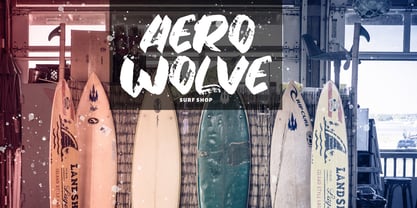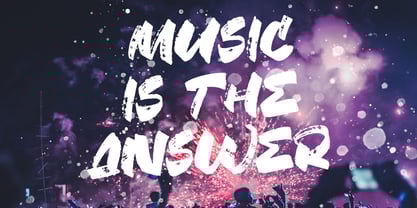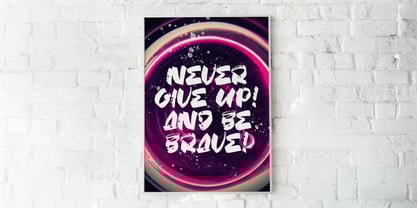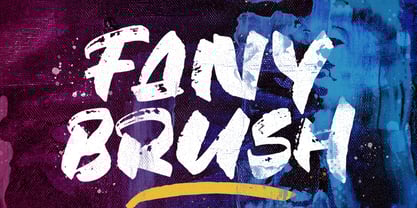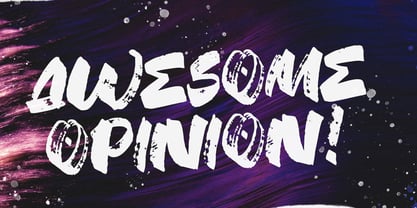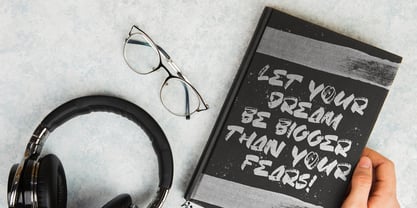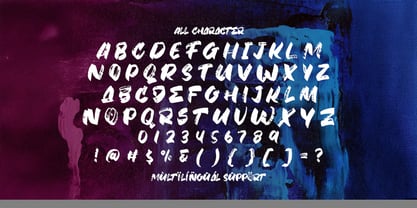
The Fany Brush Font Family was designed by Virgiawan Listanto and published by Stringlabs Creative Studio. Fany Brush contains 1 styles. More about this family
Fany Brush is a dynamic textured brush font with a bold attitude and handcrafted style. Featuring rough edges and energetic strokes, this font brings an authentic, painted look that's perfect for grabbing attention and adding creative flair.
Designers: Virgiawan Listanto
Foundry: Stringlabs Creative Studio
Fany Brush